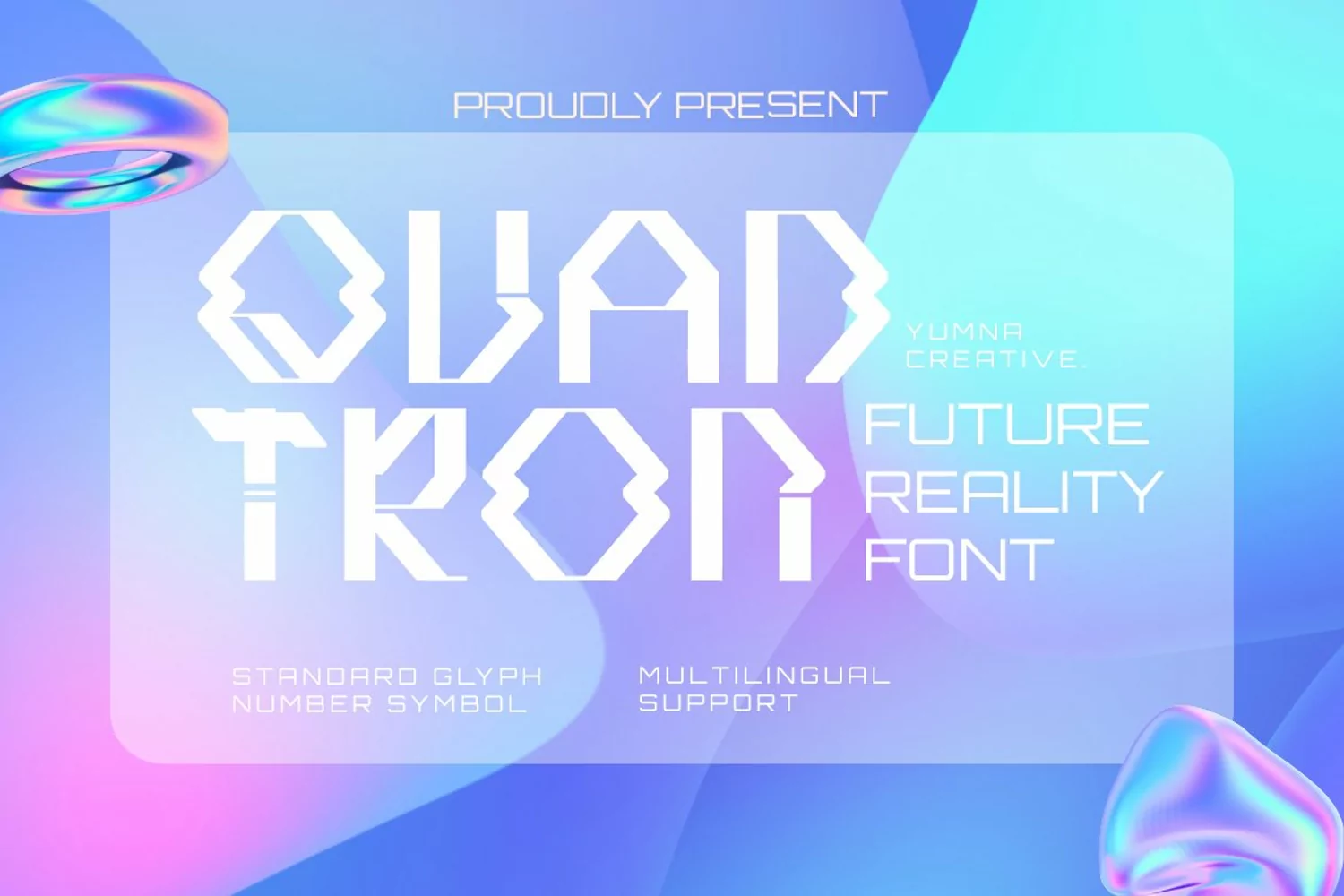
Created By Yumnacreative
Quadtron - Future Reality Font
Introducing **Quadtron - Future Reality Font**
This Font is a delicate, elegant and flowing handwritten font. It has beautiful and well as a unique blend of ligatures a letter, so that the authors compose it with a and little swirly embedding, so that a modern font is formed and ready to make a statement by adding elegant and unique flair to your next design project. Add it to your most creative ideas and notice how it makes them come alive!
- Uppercase and Lowercase letters
- Numbering and Punctuations
- Multilingual Supports